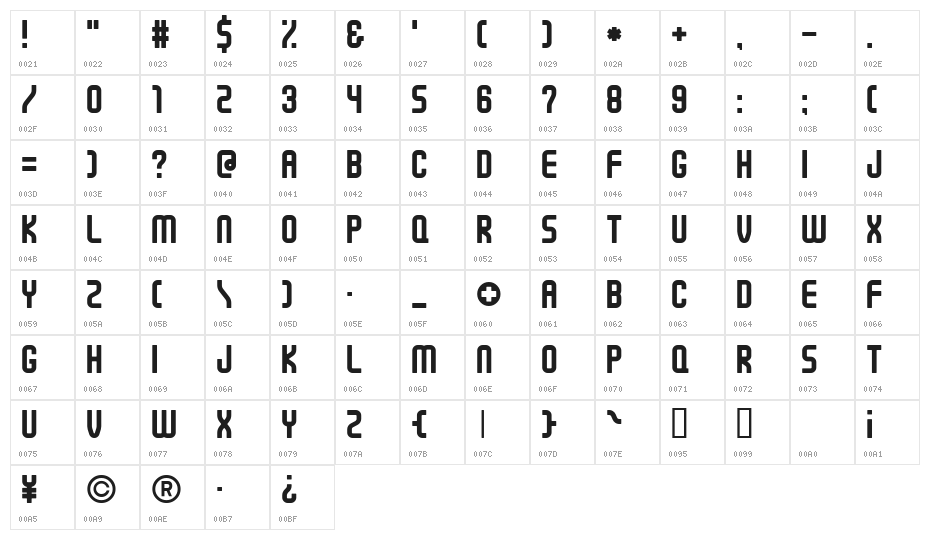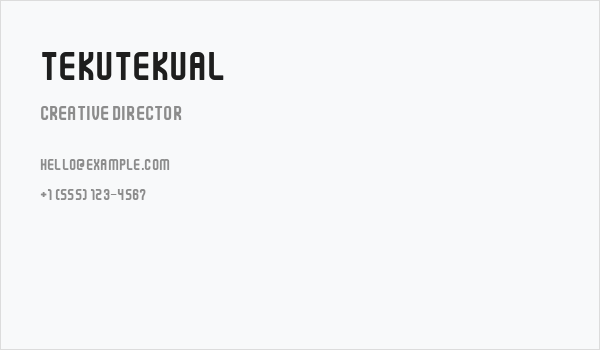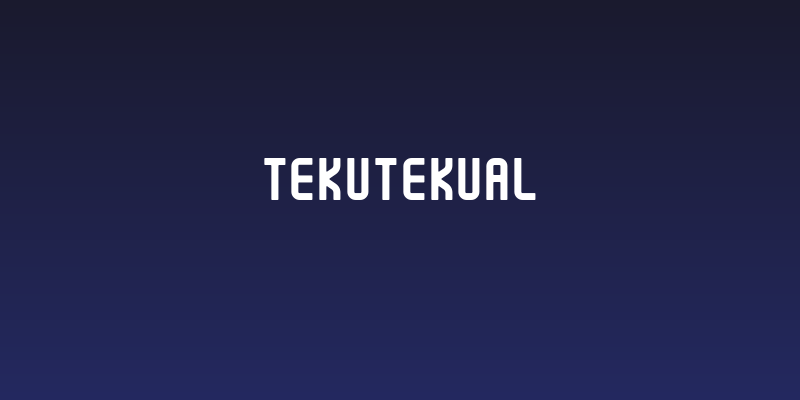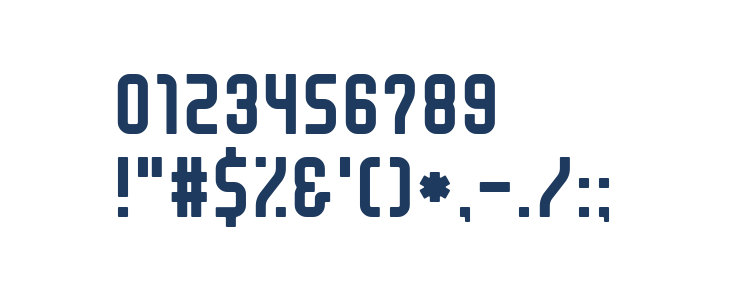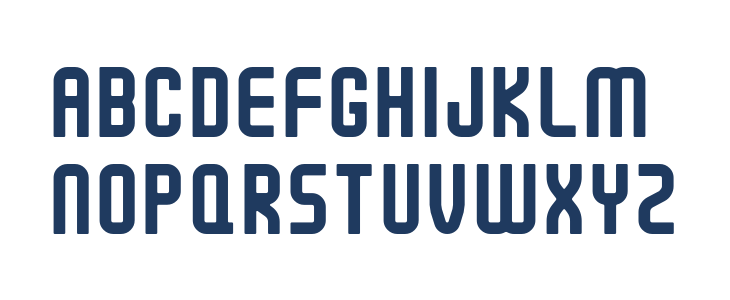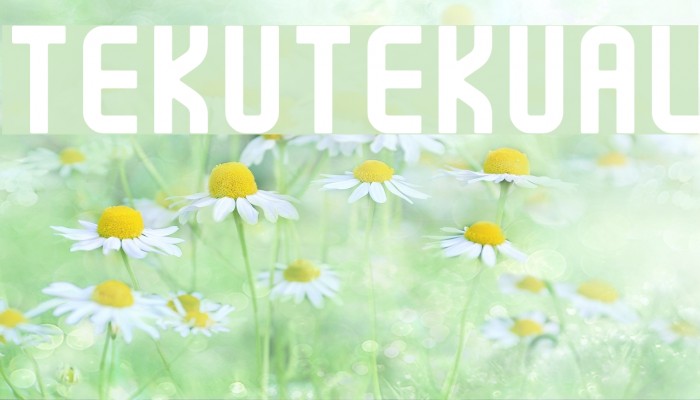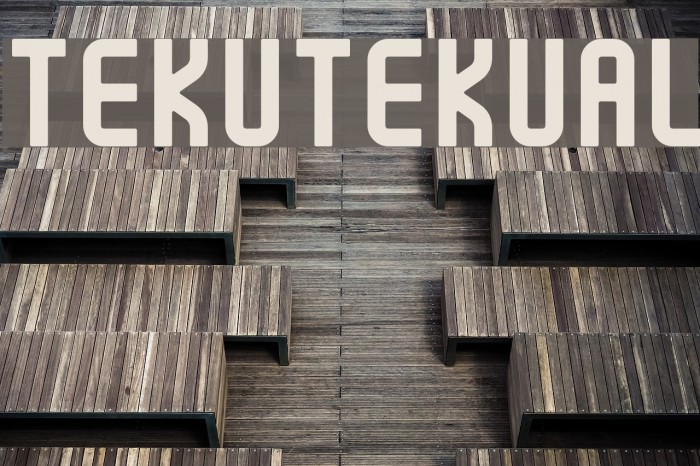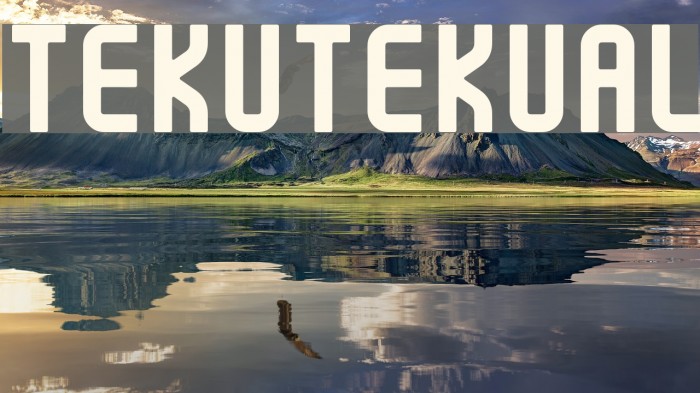
TekutekuAL Font
TekutekuAL Description
This font features a bold, geometric design with rounded edges, giving it a modern and approachable appearance. The characters are uniformly constructed with consistent stroke widths, contributing to a clean and cohesive look. The uppercase and lowercase letters maintain a similar height, enhancing readability and creating a harmonious visual flow. The numerals and special characters are designed to match the overall style, ensuring a seamless integration in various applications. Its distinct style makes it suitable for projects that require a contemporary and friendly aesthetic.
| Use Case | Headlines, Logos, Signage |
| Proposed Projects | Ideal for branding, signage, posters, and digital interfaces where a modern and approachable look is desired. |